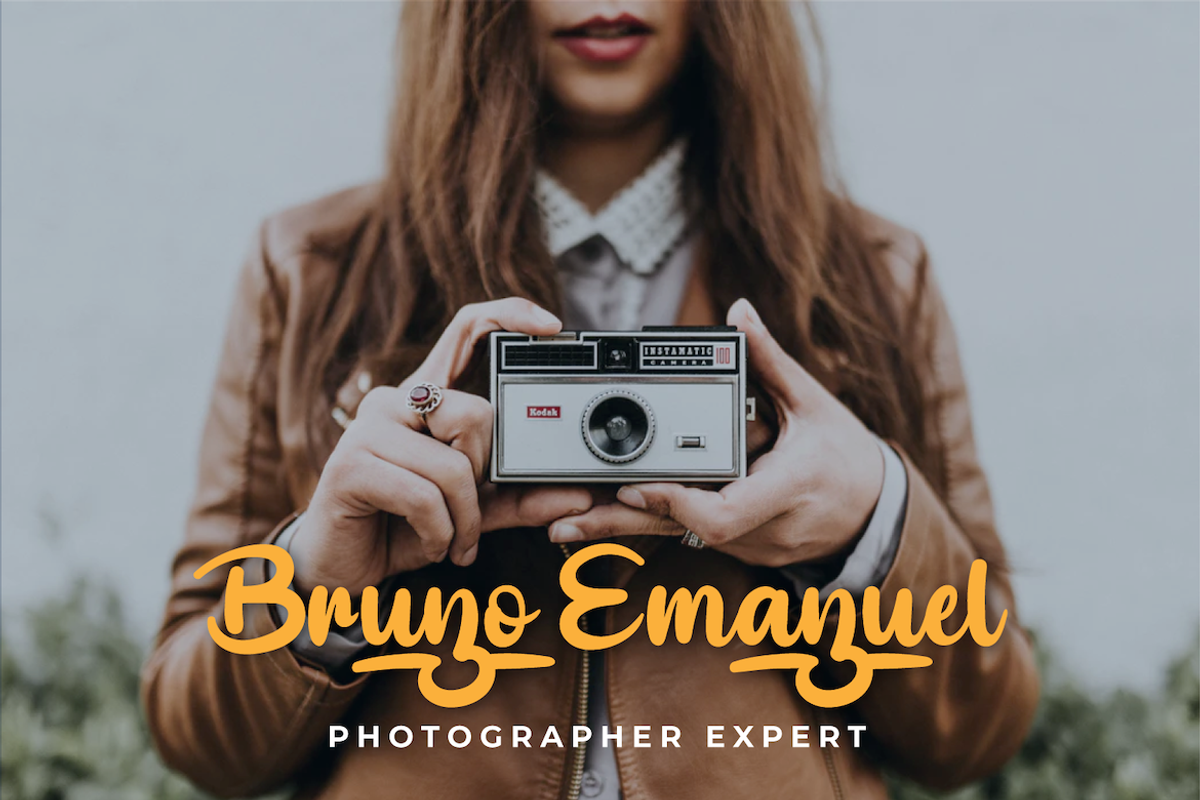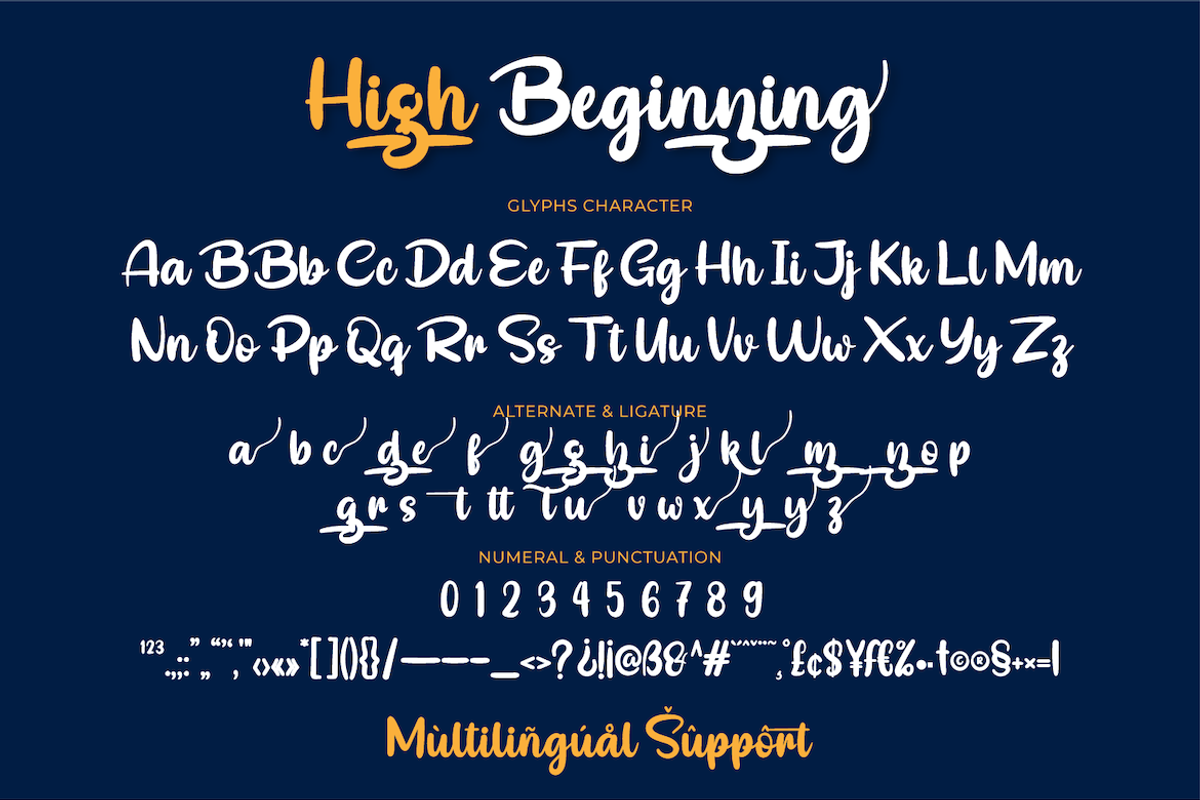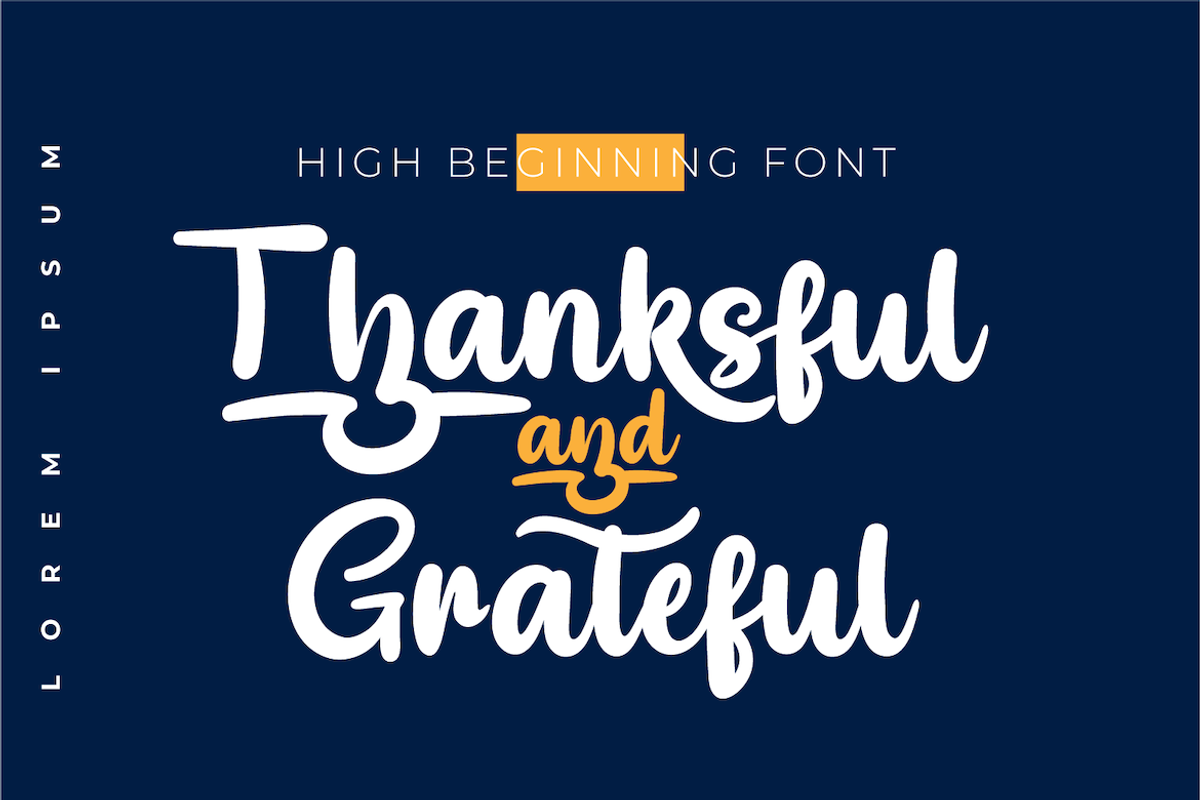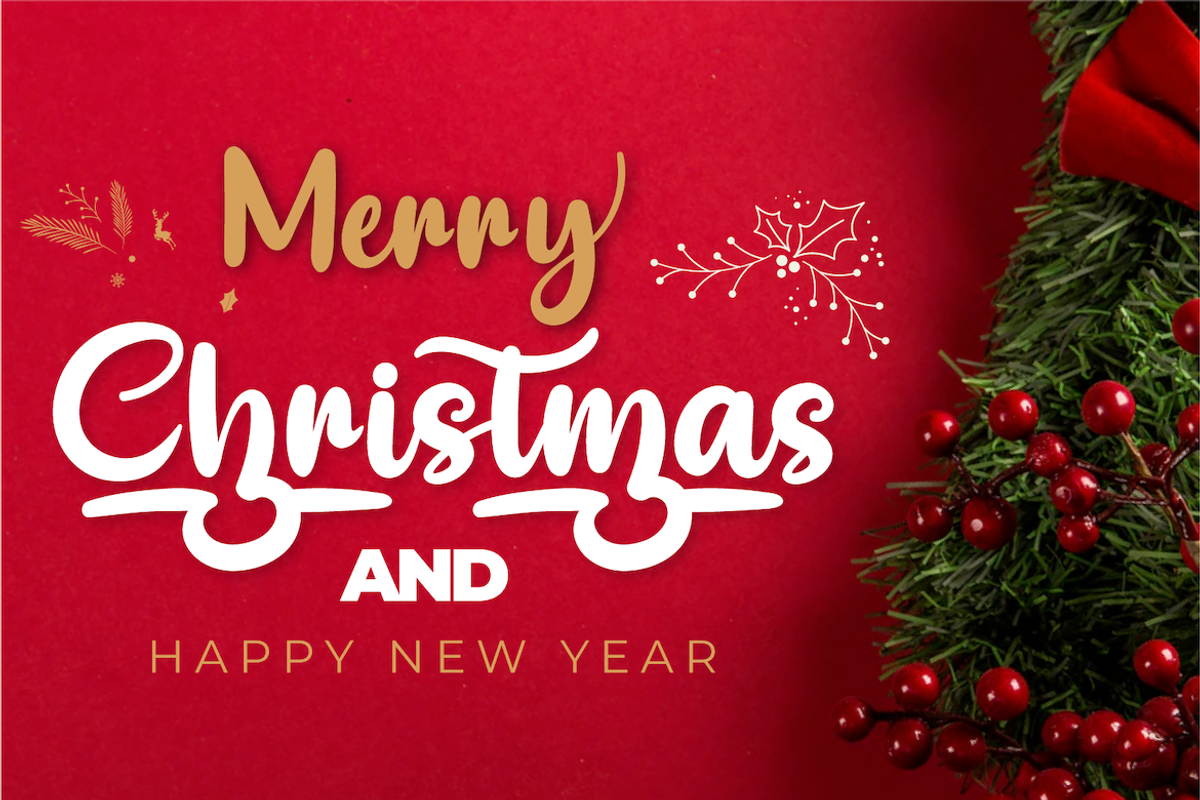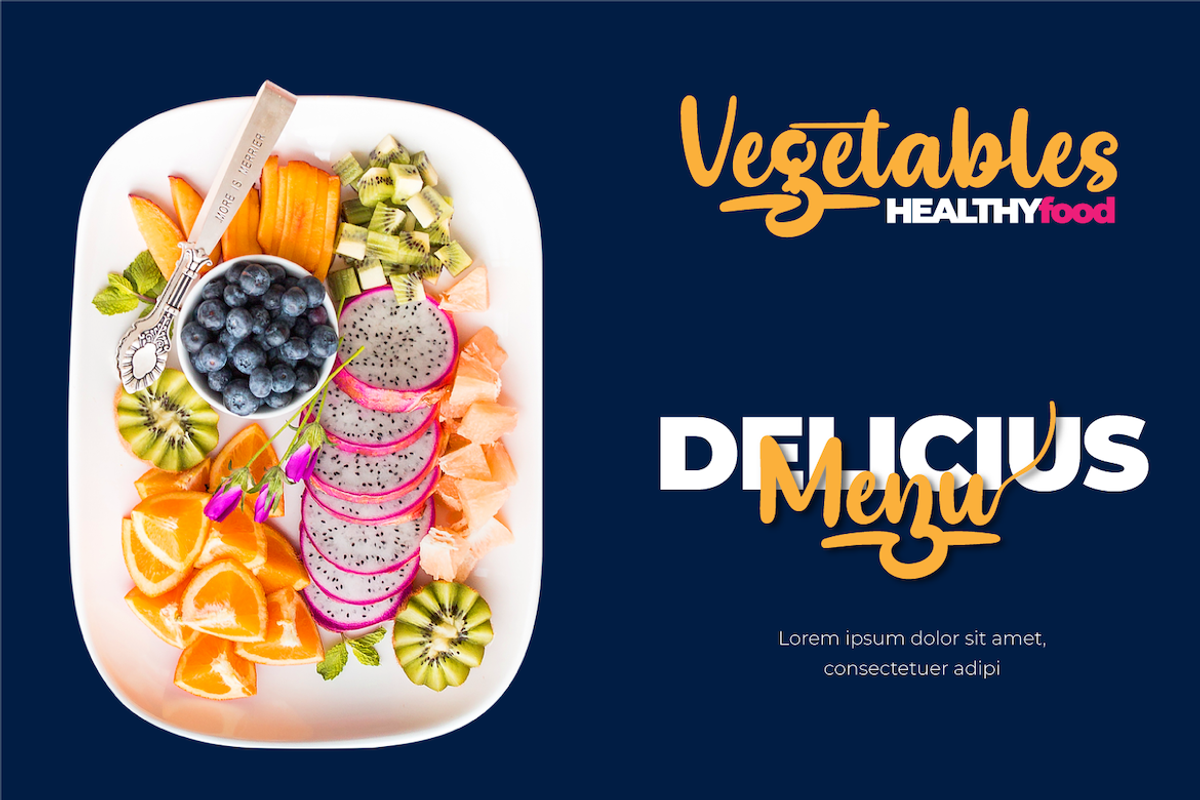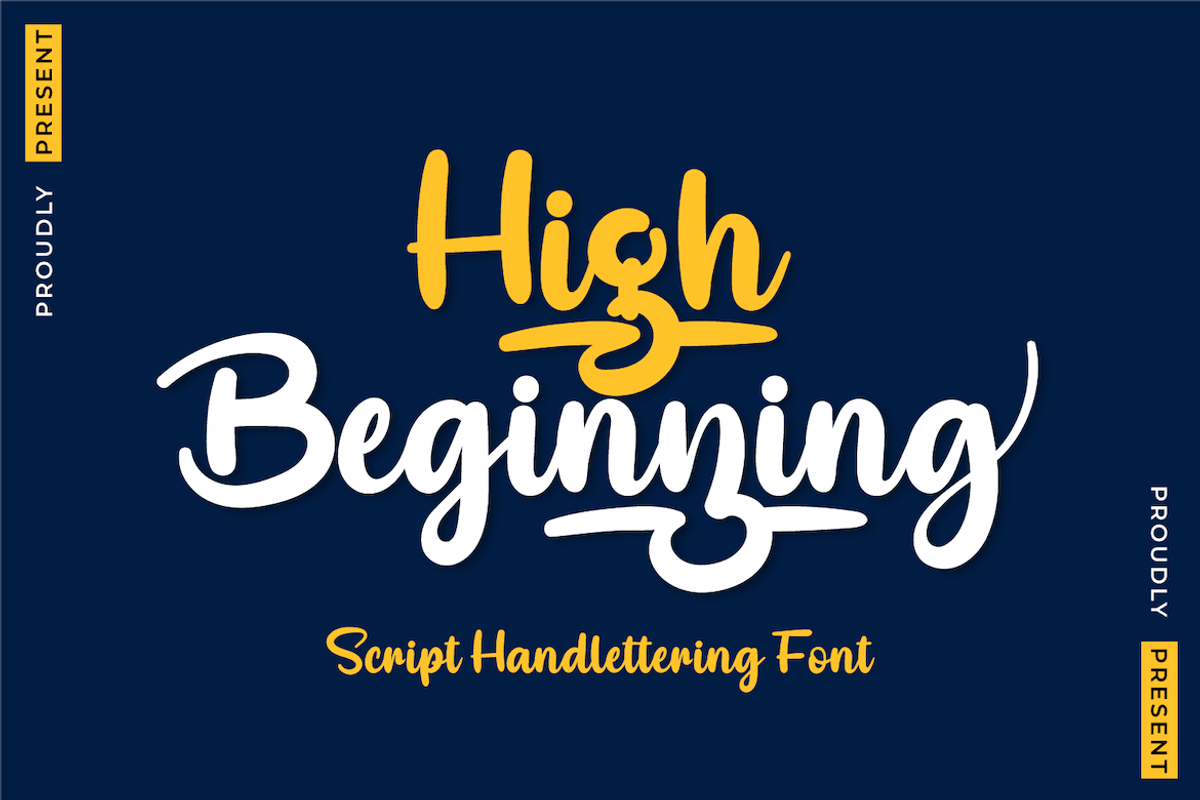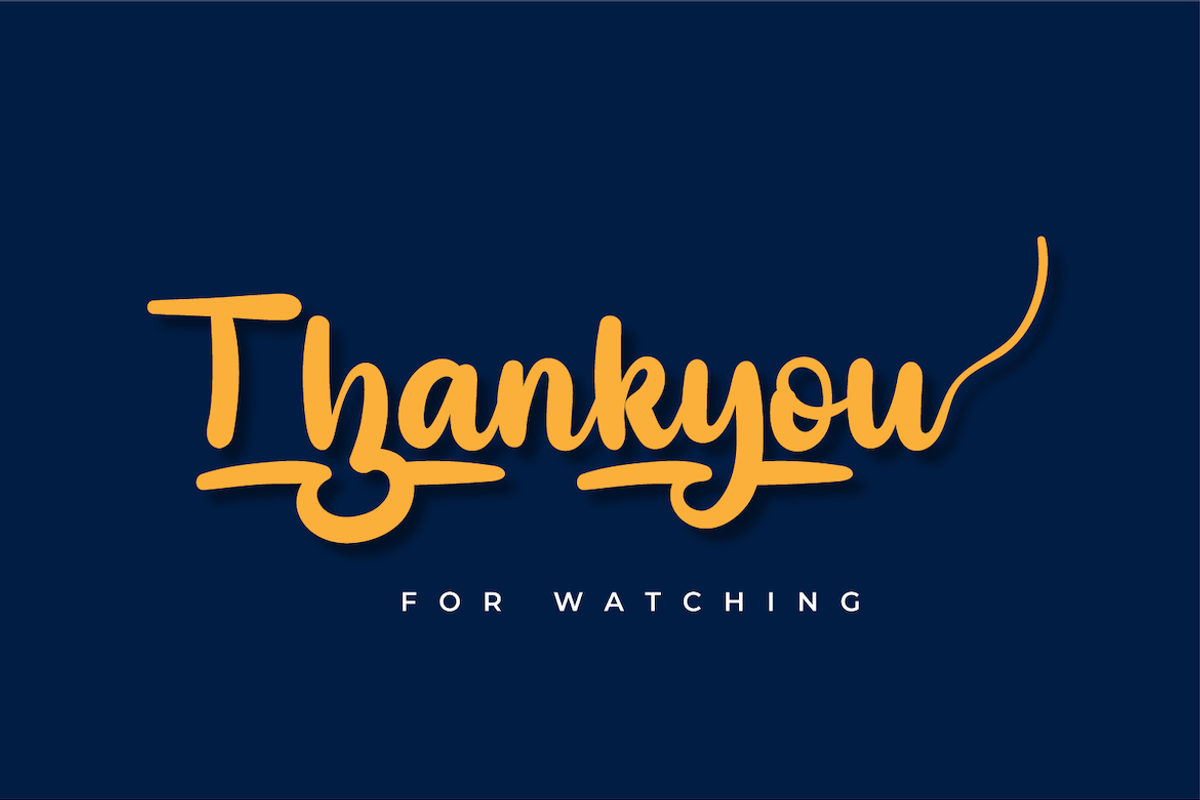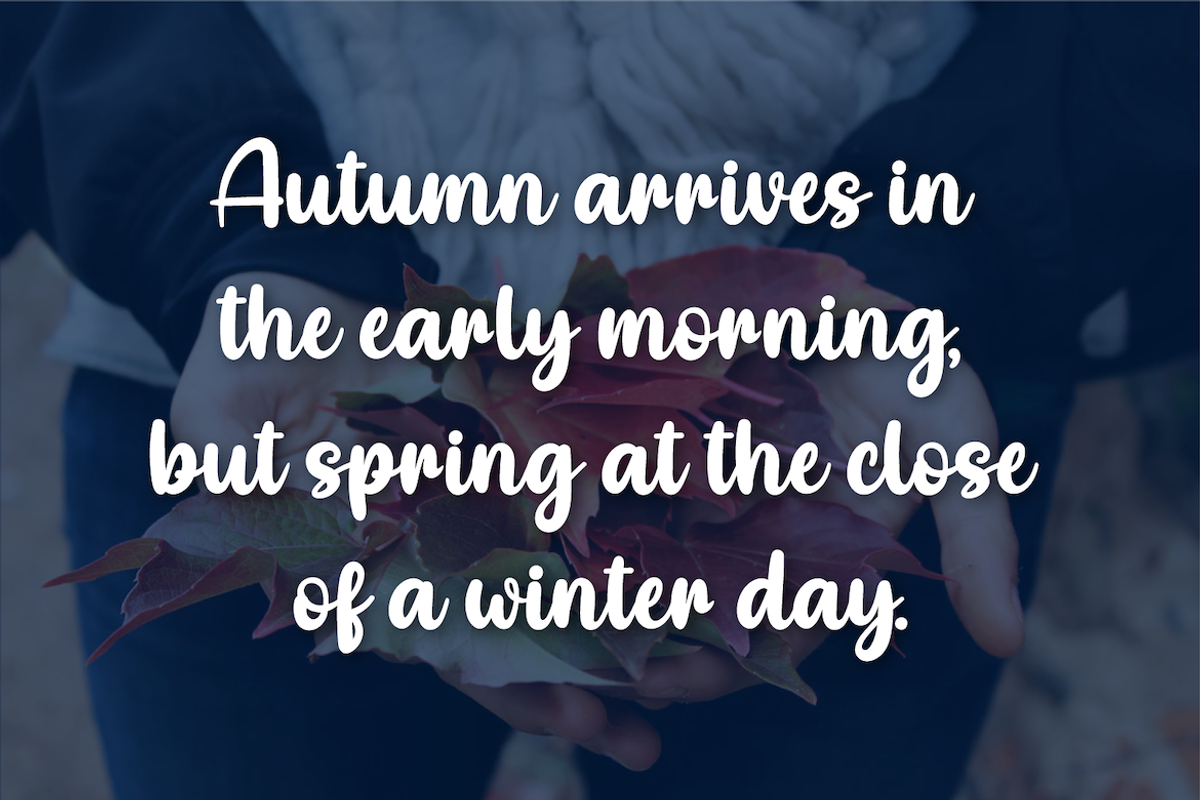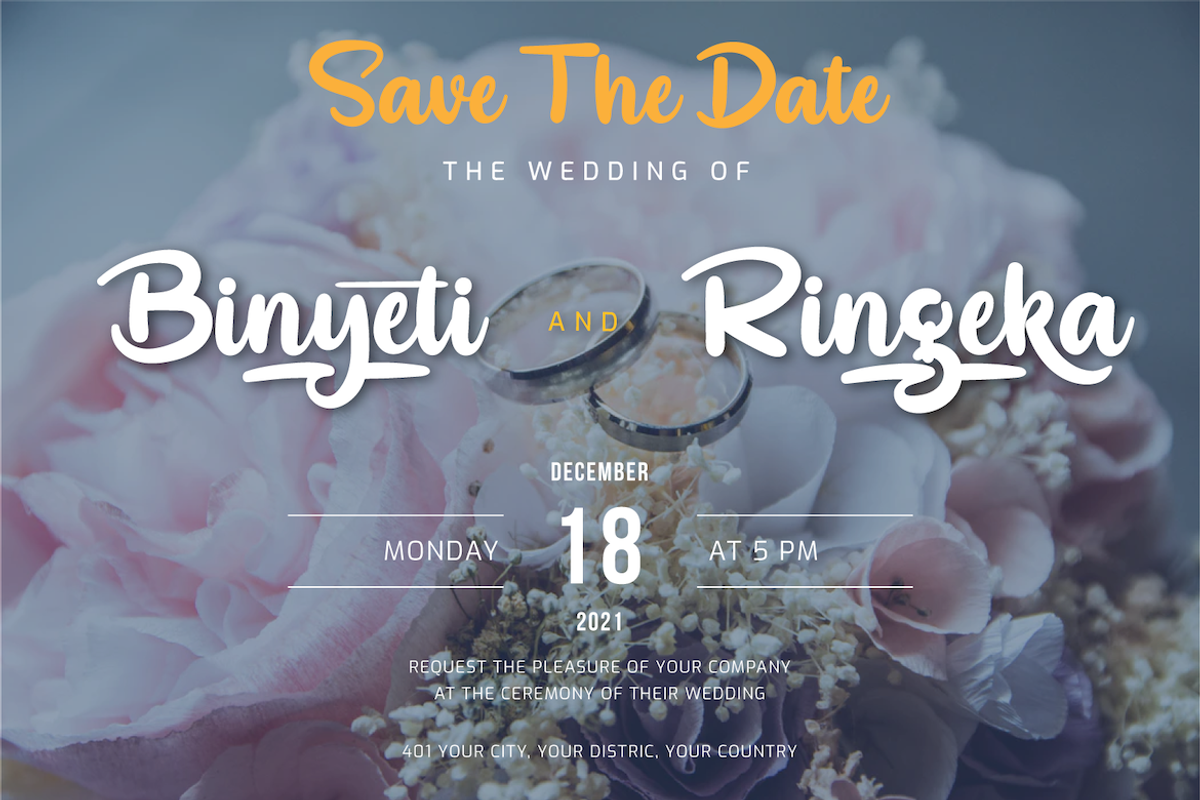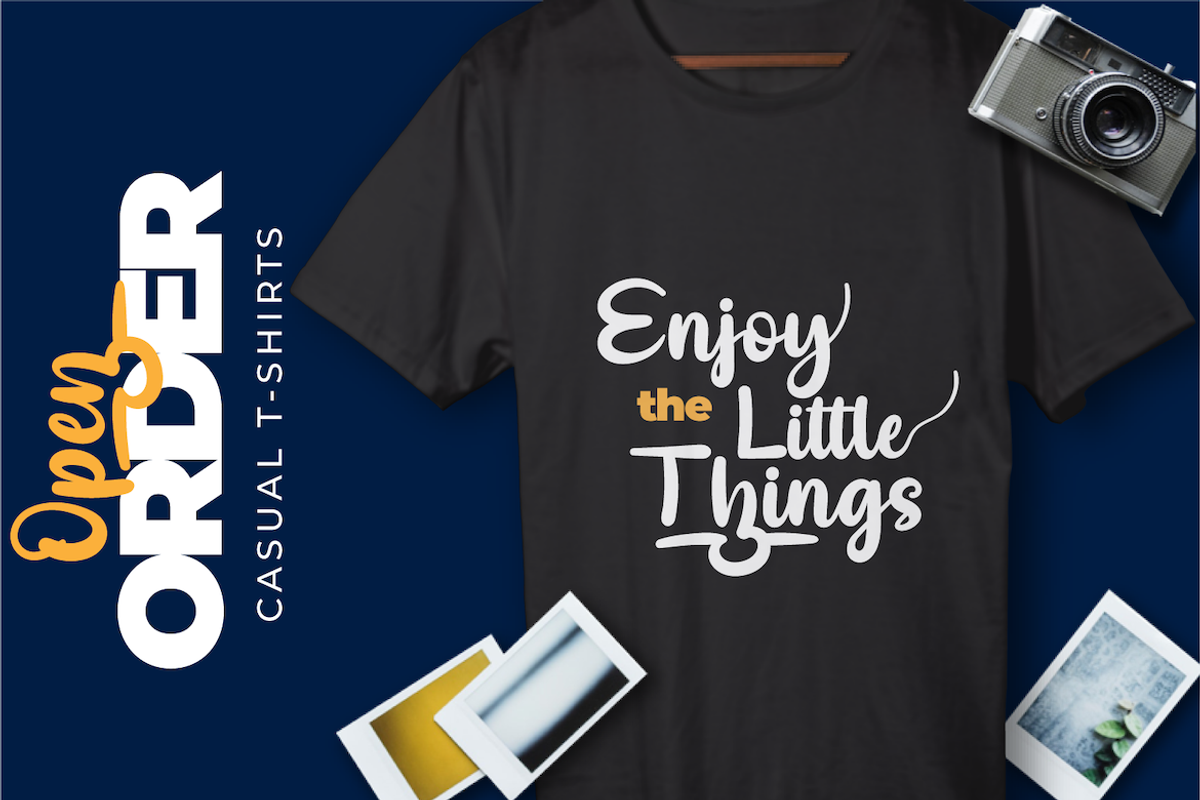
High Beginning
High Beginning is our newest script font, a product font with a modern, artistic style. each letter has a strong and beautiful character to be used as a title, a sentence that if you use it creates an elegant effect in the appearance of your design.
not limited to that, the bold calligraphy font is designed to keep paying attention to the beauty of each letter, there are alternate options for the letters which are certainly easy for you to access, so you can automatically customize the letters you want to enhance the visual appearance of your design project. This font also offers harmoniously beautiful abstract typography for a wide variety of design projects. This font is also perfect for wedding invitations, quote designs, social media business designs, advertisements, trademarks, food and beverage promotion banners, text, posters, signatures, and any design that requires handwriting.
This font is equipped with uppercase, lowercase, numbers, punctuation marks, swhas, and several variations on each character including multi-language.